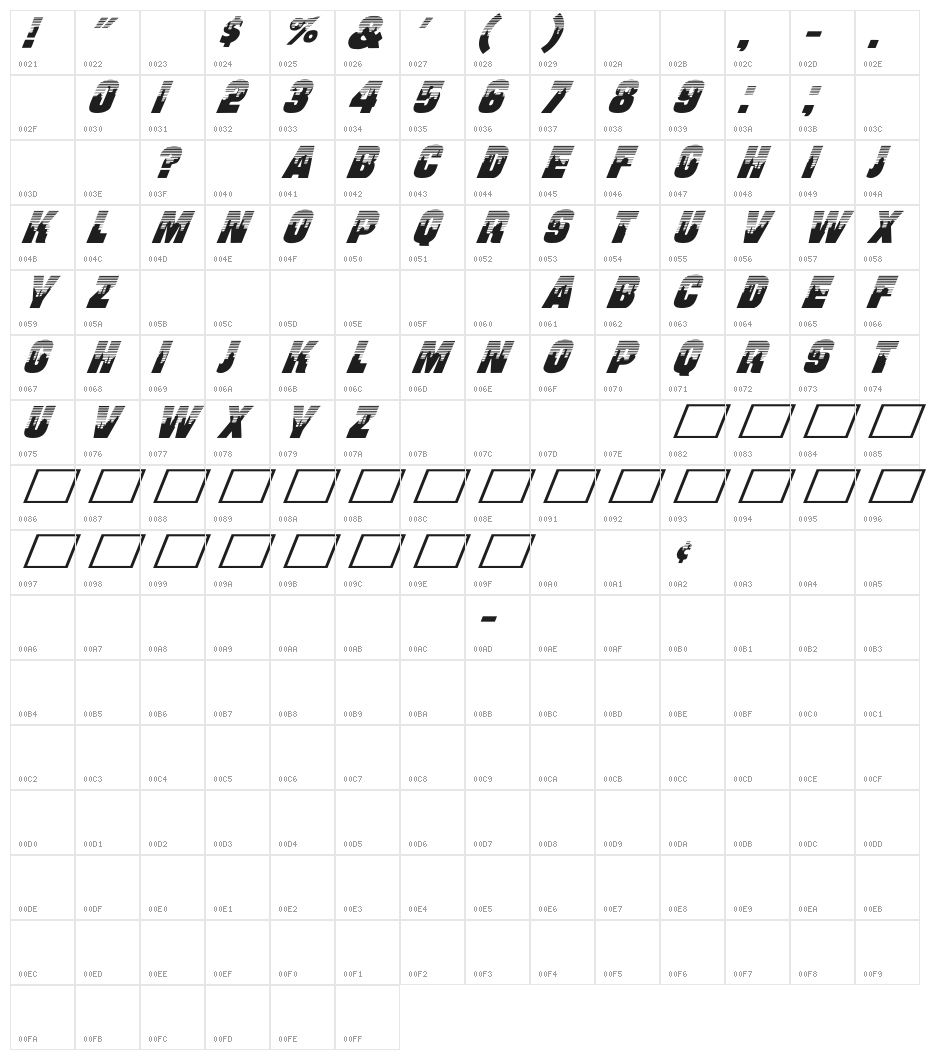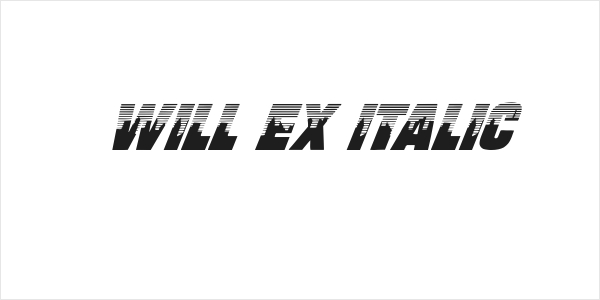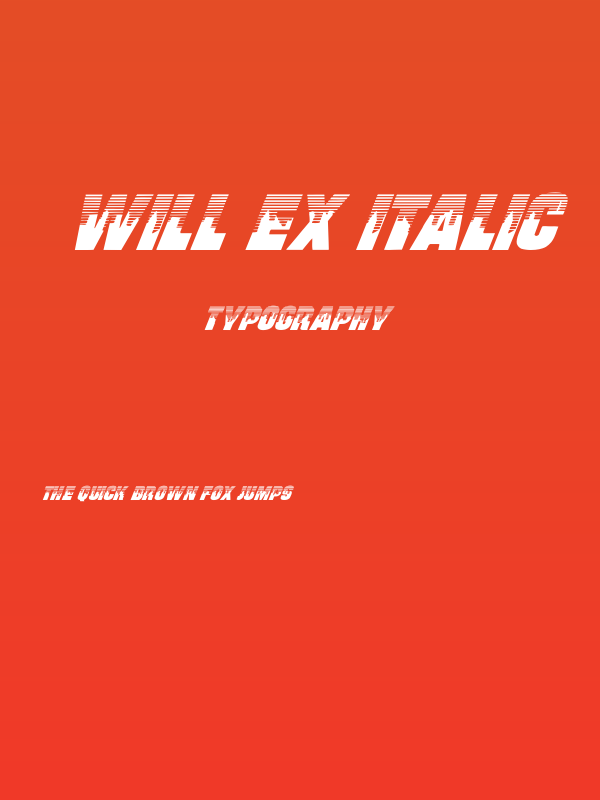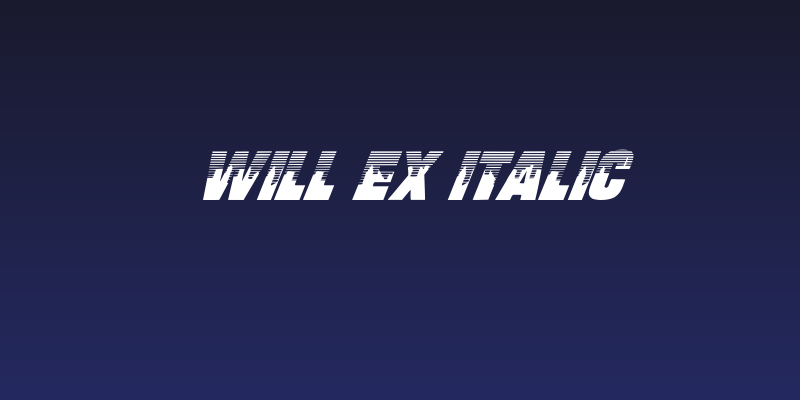
Will Ex Italic Font
Will Ex Italic Description
This font features a bold and dynamic design with a distinct italic slant, giving it a sense of movement and energy. The characters are wide and heavily weighted, with a unique striped pattern that adds a modern and edgy feel. The uppercase and lowercase letters maintain consistency in style, while the numerals and special characters complement the overall aesthetic. The font's boldness and distinctive style make it suitable for attention-grabbing headlines and impactful designs.
| Proposed Projects | Ideal for sports branding, dynamic posters, and modern advertising campaigns. |